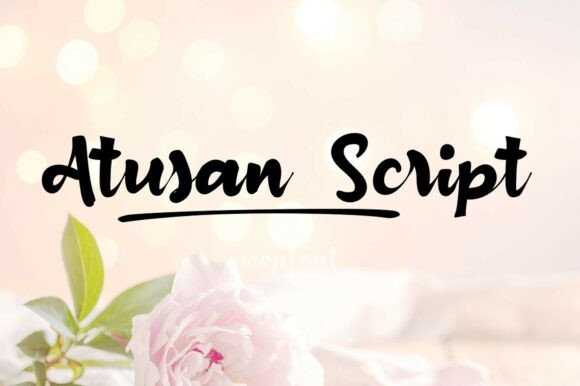
The Perfect Handwritten Touch: Discovering Atusan Script Font
I’ll never forget the time I was working on a branding project for a cozy little café. My client wanted a font that felt warm, inviting, and personal, but I was struggling to find the right fit. That’s when I stumbled upon Atusan Script, a charming, natural, and friendly handwritten script font that exudes warmth, authenticity, and a personal touch. It was love at first sight! 💕
What Makes Atusan Script So Special?
Atusan Script stands out with its approachable, fluid strokes, designed to mimic genuine handwriting with a relaxed and inviting feel. The letters connect seamlessly, often with slight variations in height and thickness, giving it a truly organic and human quality. It avoids overly ornate flourishes, opting instead for a clean, legible, and effortlessly elegant style.
Included Characters and Features
This versatile font includes a comprehensive set of:
• Uppercase and lowercase characters
• Numerals
• Essential punctuation glyphs
All crafted to maintain its distinct, intimate style. Its clear yet personable form ensures excellent readability and a strong, emotional connection, making it perfect for heartfelt messages and inviting branding.
What I Love About Atusan Script ✨
• ✅ Warm and Inviting: The font’s natural, handwritten feel makes it perfect for brands that want to convey a sense of warmth and friendliness.
• ✅ Highly Legible: Despite its handwritten nature, Atusan Script is remarkably clear and easy to read, even at smaller sizes.
• ✅ Versatile: It works beautifully for both digital and print projects, from social media graphics to business cards and brochures.
• ✅ Easy to Pair: Atusan Script pairs well with a variety of fonts, making it easy to find a complementary font for your design.
• ⚠️ Limited Formality: Due to its casual, handwritten nature, Atusan Script might not be the best fit for projects requiring a more formal or corporate tone.
• ⚠️ Requires Design Attention: To maximize its impact, Atusan Script needs thoughtful design consideration, such as appropriate line spacing and color choices.
The Backstory Behind Atusan Script
Atusan Script was inspired by the art of genuine handwriting. Its creator aimed to capture the warmth and personality of handwritten text in a digital font. Through careful design and attention to detail, Atusan Script brings a personal touch to any project.
Q: What makes Atusan Script unique?
A: Atusan Script’s unique blend of warmth, legibility, and fluid strokes sets it apart from other script fonts.